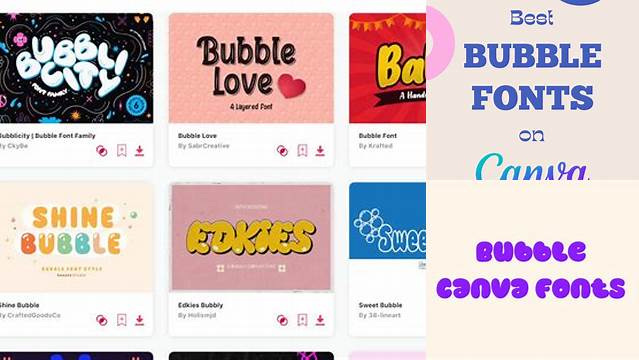
Bubble Letter Fonts: The Best Canva Options
Hey guys! Ever wanted to add a fun, playful vibe to your designs? Bubble letters are the way to go! And guess what? Canva has a bunch of awesome fonts that can give you that bubbly look. Let’s dive into the best Canva fonts that look like bubble letters and how you can use them to make your projects pop!
1. Understanding Bubble Letter Fonts
So, what exactly are bubble letter fonts? Well, imagine letters that look like they're made of inflated balloons or round, soft bubbles. They're super fun, friendly, and eye-catching. These fonts are perfect for grabbing attention, especially in designs aimed at kids or those with a lighthearted theme. You know, when you think about Canva fonts that look like bubble letters, you’re really thinking about fonts that bring a sense of joy and whimsy to your work. They’re not your serious, corporate fonts; they’re all about fun and playfulness. Using these fonts can instantly transform your design from something ordinary to something extraordinary. Think about it – a poster for a children's birthday party, a fun banner for a school event, or even just a catchy logo for a playful brand. Bubble letter fonts can make all the difference, ensuring your message is not only seen but also felt. They evoke a sense of nostalgia, reminding many of childhood and carefree days. This makes them incredibly effective for marketing campaigns that aim to tap into those emotions. And when you're working with Canva, you've got a whole arsenal of these fonts right at your fingertips, ready to bring your creative visions to life. Remember, the key to effectively using bubble letter fonts is to ensure they complement your overall design. Don't just slap them on any project – consider the context, the target audience, and the message you're trying to convey. When used thoughtfully, Canva fonts that look like bubble letters can be a powerful tool in your design toolkit, adding a touch of fun and personality to everything you create. So go ahead, experiment with different styles, colors, and sizes, and see how these fonts can elevate your designs and make them truly stand out from the crowd. Have fun and let your creativity shine!
2. Best Free Bubble Letter Fonts in Canva
Alright, let’s talk about freebies! Canva has some fantastic free bubble letter fonts that you can use without spending a dime. These are perfect if you’re just starting out or want to keep your budget in check. One great option is “Bubblegum Sans.” It’s a playful, rounded font that really captures the essence of bubble letters. Another good one is “Luckiest Guy,” which has a bold, cartoonish feel. When you're diving into Canva fonts that look like bubble letters, starting with the free options is a smart move. You get to experiment and find what works best for your style without any commitment. Plus, Canva’s free fonts are surprisingly versatile. You can use them for a wide range of projects, from social media graphics to posters and even logos. The trick is to play around with different combinations and see what really makes your design pop. Don't be afraid to mix and match fonts to create a unique look. For example, you could pair a bubble letter font with a more sophisticated sans-serif font to balance playfulness with readability. Remember, even though these fonts are free, they still pack a punch. They’re designed to be eye-catching and engaging, so make the most of them! And if you ever feel like you need more options, you can always explore Canva’s premium fonts. But for now, let’s focus on getting creative with these free Canva fonts that look like bubble letters. You'll be amazed at what you can create without spending a single penny. So, fire up Canva, start exploring, and let your imagination run wild. The possibilities are endless, and the best part is, it’s all free!
3. Premium Bubble Letter Fonts on Canva
If you’re willing to splurge a bit, Canva’s premium fonts offer even more variety and unique styles. These fonts often have more detailed designs and extra features. Look out for fonts like “BB Stracciatella” or “Happy Monster” for some truly unique bubble letter vibes. Investing in premium Canva fonts that look like bubble letters can really elevate your designs and give them a professional touch. While the free options are great, the premium fonts often come with more polished designs and additional features like alternate characters or ligatures. This means you have more flexibility to customize your text and create a truly unique look. Think of it as investing in a higher quality tool that allows you to achieve better results. For example, a premium bubble letter font might have smoother curves, cleaner lines, and a more refined overall appearance. This can make a big difference, especially if you’re working on a project that requires a high level of polish. Plus, premium fonts often come with better licensing terms, which means you can use them for commercial projects without any worries. So, if you’re serious about design and want to take your work to the next level, consider exploring Canva’s premium Canva fonts that look like bubble letters. They might cost a bit more, but the investment is well worth it when you see the impact they can have on your designs. Remember, choosing the right font is crucial for conveying the right message and creating a lasting impression. And with Canva’s wide selection of premium bubble letter fonts, you’re sure to find the perfect one for your next project.